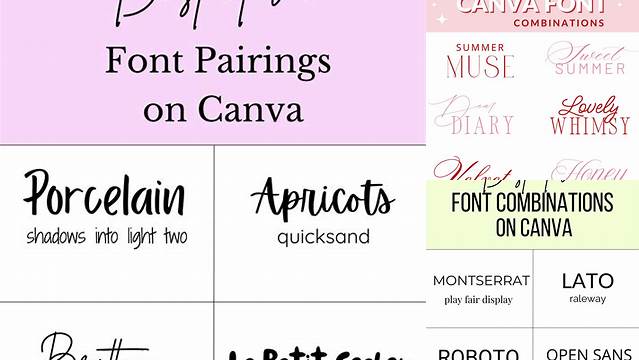
Free Canva Font Combinations: Generator & Guide
Hey guys! Ever struggled to find the perfect font pairings for your Canva designs? You're not alone! Choosing the right font combinations can be a real headache, but it's also crucial for creating visually appealing and effective designs. That's why we're diving deep into the world of Canva font combinations and how a free Canva font combinations generator can be your new best friend. In this guide, we'll explore everything from the basics of typography to advanced tips and tricks for creating stunning designs that grab attention. So, let's get started and unlock the power of perfect font pairings!
Understanding Font Pairing Principles
Before we jump into using a free Canva font combinations generator, let's cover the fundamental principles of font pairing. Think of it like this: fonts have personalities, and you want to create a harmonious relationship between them. Just like in real life, some personalities clash, while others complement each other beautifully. The key to successful font pairing is understanding these personalities and how they interact. You want your fonts to work together to convey your message effectively, creating a visually appealing hierarchy and readability. This involves considering contrast, readability, and the overall tone you want to set for your design.
The Importance of Contrast in Font Combinations
Contrast is king! When pairing fonts, you want to create a clear visual distinction between them. This helps to create a hierarchy in your design and makes it easier for your audience to read and understand your message. Imagine trying to read a document where all the text is the same size and font β it would be a total blur! Contrast can be achieved in several ways, such as pairing a bold font with a lighter one, a serif font with a sans-serif font, or a larger font size with a smaller one. This variation guides the viewer's eye and highlights important information. Using a free Canva font combinations generator can help you experiment with different contrast levels to see what works best for your project. Think about pairing a bold, attention-grabbing header font with a clean, legible body font. This ensures your headline stands out while your body text remains easy to read.
Readability: The Cornerstone of Effective Design
No matter how beautiful your design is, it's useless if no one can read it! Readability should always be a top priority when choosing font combinations. This means selecting fonts that are clear and easy to read, especially for body text. Avoid overly decorative or script fonts for large blocks of text, as they can strain the eyes. Generally, sans-serif fonts are considered more readable on screens, while serif fonts are often preferred for print. Consider the context of your design β where will it be viewed? On a website, in a brochure, or on a social media post? This will influence your choice of fonts. A free Canva font combinations generator can help you preview how your chosen fonts look together in different contexts, ensuring they maintain readability. Remember, a clear and readable design communicates your message effectively and keeps your audience engaged.
Setting the Tone with Typography
Fonts have personalities, and they can significantly impact the tone and mood of your design. A playful, handwritten font might be perfect for a children's book, but it would look out of place in a corporate report. Serif fonts often convey a sense of tradition, authority, and elegance, while sans-serif fonts tend to feel modern, clean, and approachable. Script fonts can add a touch of personality and flair, but they should be used sparingly and with caution. Think about the message you want to convey and choose fonts that align with that message. A free Canva font combinations generator can help you explore different font styles and see how they work together to create a specific tone. Are you aiming for professional and sophisticated? Fun and playful? Understanding the emotional impact of different fonts is crucial for creating designs that resonate with your audience.
Exploring Canva's Font Library
Canva boasts a massive font library, offering a diverse range of options to suit every design style. From classic serif fonts like Times New Roman and Garamond to modern sans-serif fonts like Helvetica and Open Sans, and even playful script and display fonts, there's something for everyone. Navigating this vast collection can feel overwhelming, but it's also an exciting opportunity to discover new favorites and create unique font combinations. Understanding the different font categories and their characteristics can make the process much easier. A free Canva font combinations generator often includes previews of various fonts, allowing you to quickly browse and compare styles. Canva also allows you to upload your own fonts, expanding your creative possibilities even further. The key is to explore, experiment, and find fonts that truly reflect your brand and message. Remember to consider factors like readability, contrast, and overall aesthetic when making your selections. Canva's font library is a treasure trove waiting to be explored β dive in and unleash your creativity!
Serif Fonts: Classic and Timeless
Serif fonts are characterized by the small strokes or "serifs" that extend from the main strokes of the letters. These fonts often convey a sense of tradition, authority, and elegance. Think of classic books, newspapers, and corporate documents β serif fonts are often the go-to choice for these types of designs. Popular serif fonts in Canva include Times New Roman, Garamond, Georgia, and Playfair Display. These fonts are excellent for body text in print materials, as the serifs help to guide the eye and improve readability. However, they can also be used for headings and titles, especially when paired with a contrasting sans-serif font. Using a free Canva font combinations generator, you might pair Playfair Display as a header with Montserrat as a body font for a sophisticated and readable design. Serif fonts bring a touch of sophistication and history to your designs, making them a versatile choice for a wide range of projects. If you're aiming for a classic and professional look, serif fonts are a fantastic option.
Sans-Serif Fonts: Modern and Clean
Sans-serif fonts, as the name suggests, lack the small strokes or serifs found in serif fonts. This gives them a cleaner, more modern appearance. Sans-serif fonts are often associated with minimalism, technology, and contemporary design. They are generally considered more readable on screens, making them a popular choice for websites, apps, and digital marketing materials. Canva offers a wide variety of sans-serif fonts, including Helvetica, Arial, Open Sans, Lato, and Montserrat. These fonts are incredibly versatile and can be used for both headings and body text. When pairing sans-serif fonts, it's important to consider contrast in weight and size to create visual interest. A free Canva font combinations generator can help you experiment with different sans-serif pairings. For example, you might pair the bold Montserrat with the lighter Open Sans for a clean and modern look. Sans-serif fonts are the workhorses of the digital world, providing a clean and readable aesthetic that works well in a variety of contexts.
Script Fonts: Elegant and Playful
Script fonts mimic the flowing strokes of handwriting, adding a touch of elegance, personality, and flair to your designs. These fonts can range from formal and calligraphic to playful and whimsical. Script fonts are best used sparingly, as they can be difficult to read in large blocks of text. They are ideal for headings, logos, invitations, and other design elements where you want to make a statement. Canva's script font library includes options like Pacifico, Lobster, Brush Script MT, and Great Vibes. When pairing script fonts, it's crucial to choose a contrasting font that is highly readable, such as a simple sans-serif or serif font. A free Canva font combinations generator can help you find the perfect balance between elegance and readability. For instance, you might pair the flowing Great Vibes script with the clean Open Sans for a wedding invitation design. Script fonts add a touch of personality and artistry to your designs, but remember to use them judiciously to maintain readability and visual harmony.
Display Fonts: Bold and Unique
Display fonts are designed to grab attention and make a statement. These fonts often feature unique shapes, weights, and styles, making them perfect for headlines, logos, and other design elements where you want to stand out. Display fonts are not typically suitable for body text, as their decorative nature can hinder readability. Canva offers a wide range of display fonts, from bold and geometric to whimsical and illustrative. When using display fonts, it's essential to pair them with a simple and readable font for the body text. This creates a visual hierarchy and ensures that your message is clear. A free Canva font combinations generator can help you explore different display font pairings. For example, you might pair the bold Bebas Neue with the clean Roboto for a striking headline and readable body text combination. Display fonts are the attention-getters of the font world, allowing you to express your creativity and make a lasting impression. Use them strategically to add personality and visual impact to your designs.
How a Free Canva Font Combinations Generator Works
Okay, so now you're armed with the basics of font pairing and the amazing variety in Canva's font library. But let's be real, sifting through all those fonts and trying to figure out what works can still feel like a Herculean task. That's where a free Canva font combinations generator comes to the rescue! These handy tools are designed to simplify the font pairing process, suggesting harmonious combinations based on various criteria. Most generators work by allowing you to input a base font or select a style you're aiming for (e.g., modern, classic, playful). The generator then uses algorithms and design principles to suggest complementary fonts that work well together. This can save you tons of time and effort, and even introduce you to fonts you might not have considered otherwise. These generators often provide previews of the font combinations, allowing you to see how they look together before implementing them in your design. Think of it as your personal font pairing assistant, guiding you towards typographic perfection.
Inputting a Base Font for Suggestions
One of the most common ways a free Canva font combinations generator works is by allowing you to input a base font. This is a font that you already like or have chosen for a specific purpose, such as your brand font or a font that perfectly captures the tone of your design. Once you enter the base font, the generator analyzes its characteristics β such as its style, weight, and serifs (or lack thereof) β and suggests fonts that complement it well. This is incredibly helpful because it takes the guesswork out of finding a secondary font that won't clash with your primary font. For example, if you input Montserrat (a popular sans-serif font), the generator might suggest pairing it with a serif font like Merriweather for contrast and readability. This feature is perfect for designers who have a starting point but need help finding the perfect font partner. It's like having a font sommelier recommending the perfect wine pairing for your design!
Selecting a Style for Inspiration
Sometimes, you might not have a specific font in mind, but you have a clear idea of the style you want to achieve β perhaps modern, classic, minimalist, or playful. Many free Canva font combinations generators allow you to select a style as a starting point for your font search. This is a fantastic way to get inspiration and explore different typographic directions. When you select a style, the generator will suggest font combinations that align with that aesthetic. For example, if you select "classic," the generator might recommend pairings of serif fonts like Garamond and Baskerville. If you choose "modern," you might see suggestions involving sans-serif fonts like Open Sans and Lato. This feature is invaluable for designers who are experimenting with different styles or need help translating their vision into typography. It's like having a mood board for fonts, guiding you towards the perfect aesthetic for your design.
Previewing Font Combinations in Real-Time
Seeing is believing, especially when it comes to font pairing! One of the most valuable features of a free Canva font combinations generator is the ability to preview font combinations in real-time. This allows you to see exactly how the fonts will look together in a design context before you commit to using them. Generators often provide a preview area where you can type in sample text and see it rendered in the suggested font pairings. This gives you a clear idea of the fonts' readability, contrast, and overall visual harmony. You can experiment with different sizes, weights, and styles to fine-tune the combination to your liking. This real-time preview functionality is crucial for making informed decisions and avoiding typographic mishaps. It's like trying on clothes before you buy them β you want to make sure they fit and look good!
Top Free Canva Font Combination Generators
Alright, so you're sold on the idea of using a free Canva font combinations generator β awesome! But with so many options out there, how do you choose the right one? Don't worry, we've got you covered. Here are some of the top free Canva font combination generators that you can start using today:
Canva's Built-In Font Pairing Tool
Did you know that Canva itself has a built-in font pairing tool? Yep! While it's not a standalone "generator" in the traditional sense, Canva's design interface offers helpful suggestions for font combinations as you're working on your projects. When you select a text element and choose a font, Canva will often suggest other fonts that pair well with your selection. This is a super convenient way to discover new combinations without leaving the Canva platform. Canva's suggestions are based on typographic principles and design best practices, so you can trust that they're generally solid choices. This built-in feature is perfect for designers who want a seamless font pairing experience within their Canva workflow. It's like having a font pairing guru whispering suggestions in your ear as you design!
FontPair: A Dedicated Font Pairing Website
FontPair is a fantastic website dedicated specifically to font pairing. It features a curated collection of font combinations, showcasing pairings from Google Fonts, which are readily available in Canva. FontPair's interface is clean and intuitive, making it easy to browse different combinations and see how they look in real-time. You can filter font pairings by style (e.g., modern, classic, serif, sans-serif) to find the perfect match for your project. Each combination is presented with a clear visual example, showing how the fonts work together for headings and body text. FontPair is a valuable resource for designers who want a focused and curated selection of font pairings. It's like a boutique font shop, offering carefully selected and stylish combinations for your consideration.
Coolors: A Versatile Design Tool with Font Pairing
Coolors is a popular online tool known for its color palette generator, but it also offers a handy font pairing feature. This makes it a one-stop shop for design inspiration, allowing you to explore both color and font combinations in one place. Coolors' font pairing tool allows you to input a base font and generates suggestions for complementary fonts. It also provides previews of the combinations, so you can see how they look together. The integration with the color palette generator is particularly useful, as it allows you to create a cohesive visual design that harmonizes both color and typography. Coolors is a versatile tool for designers who want to explore the interplay between color and font in their projects. It's like a design Swiss Army knife, offering a range of tools to help you create visually stunning designs.
FontJoy: An AI-Powered Font Combination Generator
FontJoy takes font pairing to the next level with its AI-powered generator. This tool uses machine learning algorithms to suggest font combinations based on your preferences. You can adjust the contrast and similarity levels to fine-tune the suggestions to your liking. FontJoy's interface is interactive and fun to use, allowing you to experiment with different combinations and see the results in real-time. The AI-powered nature of the tool means that it can generate a wide variety of unique and unexpected pairings that you might not have considered otherwise. FontJoy is a great option for designers who want to push the boundaries of typography and explore new possibilities. It's like having a font pairing robot assistant, generating innovative and surprising combinations for your design projects.
Tips for Using Font Combinations Effectively in Canva
Okay, you've got your free Canva font combinations generator, you've picked out some killer font pairings β now what? It's time to put those fonts to work! But just like any tool, a font combination generator is only as effective as the person using it. To really nail your typography game in Canva, here are some essential tips for using font combinations effectively:
Limiting the Number of Fonts in a Design
Less is often more, especially when it comes to fonts. A general rule of thumb is to limit yourself to two or three fonts in a single design. Using too many fonts can create a cluttered and confusing visual experience, diluting your message and making your design look amateurish. When you stick to a limited number of fonts, you create a sense of visual harmony and consistency. Choose one font for your headings and another for your body text, and perhaps a third for accents or captions. This creates a clear hierarchy and ensures that your design is easy to read and understand. A free Canva font combinations generator can help you narrow down your choices and find a small set of fonts that work beautifully together. Think of your fonts as members of a band β you want a cohesive group that plays well together, not a cacophony of competing instruments.
Establishing a Clear Visual Hierarchy
A strong visual hierarchy is crucial for guiding your audience through your design and highlighting important information. This is achieved by using different font sizes, weights, and styles to create a clear distinction between headings, subheadings, body text, and other elements. Your headings should be the largest and most prominent fonts, drawing the viewer's eye to the key messages. Subheadings should be smaller than headings but larger than body text, providing a secondary level of information. Body text should be legible and easy to read, typically using a simpler font style. Using a free Canva font combinations generator, you can experiment with different font pairings to create a visually appealing hierarchy. For example, you might use a bold display font for your main heading, a slightly smaller sans-serif font for subheadings, and a classic serif font for the body text. A well-defined visual hierarchy ensures that your message is clear, engaging, and easy for your audience to follow.
Maintaining Consistency Across Designs
Consistency is key for building a strong brand identity and creating a cohesive visual experience. This means using the same font combinations across all your designs, from your website and social media graphics to your marketing materials and presentations. When you consistently use the same fonts, your audience will begin to associate them with your brand, creating a sense of familiarity and trust. Choose a set of fonts that reflects your brand personality and stick with them. A free Canva font combinations generator can help you identify a core set of fonts that you can use consistently. Create a style guide that outlines your font choices and how they should be used in different contexts. This will ensure that your designs are always on-brand and visually consistent. Consistency in typography is a powerful tool for building brand recognition and reinforcing your message.
Considering the Mood and Tone of Your Design
As we discussed earlier, fonts have personalities, and they can significantly impact the mood and tone of your design. When choosing font combinations, it's crucial to consider the message you want to convey and the emotions you want to evoke. A playful, handwritten font might be perfect for a birthday invitation, but it would look out of place in a professional business report. Serif fonts often convey a sense of tradition and authority, while sans-serif fonts tend to feel modern and approachable. Script fonts can add a touch of elegance and personality, but they should be used sparingly. A free Canva font combinations generator can help you explore different font styles and see how they work together to create a specific mood. Think about the overall tone of your design and choose fonts that align with that tone. This will help you create a visually compelling and emotionally resonant message.
Common Font Pairing Mistakes to Avoid
Even with a free Canva font combinations generator at your disposal, it's still possible to make font pairing mistakes. Typography is a subtle art, and it takes practice and attention to detail to master. To help you avoid common pitfalls, here are some font pairing mistakes to watch out for:
Pairing Fonts That Are Too Similar
One of the most common font pairing mistakes is choosing fonts that are too similar. While you want your fonts to harmonize, you also need to create enough contrast to establish a visual hierarchy and make your design interesting. If your fonts are too alike, they can blend together and make your design look flat and uninspired. For example, pairing two sans-serif fonts with similar weights and styles can result in a monotonous look. The key is to find fonts that complement each other but also have distinct personalities. A free Canva font combinations generator can help you identify fonts that offer the right amount of contrast. Think about pairing a bold font with a lighter one, a serif font with a sans-serif font, or a larger font size with a smaller one. This will create visual interest and guide the viewer's eye through your design.
Overusing Script or Decorative Fonts
Script and decorative fonts can add a touch of personality and flair to your designs, but they should be used sparingly. These fonts are often difficult to read in large blocks of text, and overusing them can create a cluttered and overwhelming visual experience. Save script and decorative fonts for headings, logos, or other design elements where you want to make a statement. For body text, stick to simpler and more readable fonts, such as sans-serif or serif fonts. A free Canva font combinations generator can help you find the perfect balance between elegance and readability when using script fonts. Think of script and decorative fonts as accent pieces β they can enhance your design, but they shouldn't be the main focus. Use them judiciously to add visual interest without sacrificing readability.
Ignoring Readability in Your Font Choices
No matter how beautiful your font combinations are, they're useless if no one can read them! Readability should always be a top priority when choosing fonts, especially for body text. Avoid overly decorative or stylized fonts for large blocks of text, as they can strain the eyes and make your message difficult to understand. Choose fonts that are clear, legible, and easy to read in the context of your design. Consider the size of the text, the spacing between letters and lines, and the color contrast between the text and the background. A free Canva font combinations generator can help you preview how your chosen fonts look together in different contexts, ensuring they maintain readability. Remember, clear communication is the foundation of effective design. Prioritize readability to ensure that your message is easily understood by your audience.
Forgetting About Font Licensing
This is a crucial point that often gets overlooked: font licensing! Before using any font in your designs, it's essential to understand its licensing terms. Many fonts are free for personal use but require a commercial license for use in business or professional projects. Using a font without the proper license can lead to legal issues and financial penalties. Canva includes a variety of free fonts that are safe to use in commercial projects. However, if you upload your own fonts to Canva, it's your responsibility to ensure that you have the appropriate licenses. A free Canva font combinations generator may suggest fonts that have different licensing terms, so it's important to double-check before using them. Pay attention to font licenses to protect yourself and your business from legal problems. When in doubt, opt for fonts with clear and permissive licenses, or purchase commercial licenses for the fonts you need.
Real-World Examples of Great Canva Font Combinations
Okay, let's get practical! We've covered the theory and the tools, but now let's look at some real-world examples of fantastic font combinations that you can use in Canva. These examples will give you a concrete sense of how different fonts work together and inspire you to create your own stunning pairings. Remember, a free Canva font combinations generator can help you experiment with these suggestions and adapt them to your specific needs.
Playfair Display and Montserrat: Elegant and Modern
This is a classic pairing that combines elegance and modernity. Playfair Display, a serif font with a sophisticated flair, is perfect for headings and titles. Montserrat, a clean and versatile sans-serif font, works beautifully for body text. This combination is ideal for websites, brochures, and other designs where you want to convey a sense of professionalism and style. Playfair Display adds a touch of refinement, while Montserrat ensures readability and a contemporary feel. Think of this pairing as the little black dress of font combinations β timeless, versatile, and always in style. A free Canva font combinations generator would likely suggest this pairing as a great option for a sophisticated design.
Oswald and Lato: Bold and Approachable
Oswald is a bold and condensed sans-serif font that's perfect for headlines and calls to action. Lato, a clean and friendly sans-serif font, works well for body text and other supporting elements. This combination is ideal for marketing materials, social media graphics, and websites where you want to grab attention and convey a sense of approachability. Oswald's strong presence makes a statement, while Lato's readability ensures that your message is clear. This pairing is like a friendly handshake β confident and welcoming. A free Canva font combinations generator might recommend this pairing for designs that need a strong but approachable feel.
Raleway and Open Sans: Clean and Minimalist
Raleway is a sleek and elegant sans-serif font that works well for headings and subheadings. Open Sans, a highly readable sans-serif font, is a great choice for body text. This combination is perfect for minimalist designs, websites, and apps where you want a clean and uncluttered look. Raleway's subtle sophistication adds a touch of style, while Open Sans ensures readability and clarity. This pairing is like a well-organized workspace β clean, efficient, and easy to navigate. A free Canva font combinations generator might suggest this pairing for projects that prioritize simplicity and clarity.
Merriweather and Roboto: Readable and Professional
Merriweather is a classic serif font designed specifically for on-screen readability, making it an excellent choice for body text. Roboto, a clean and modern sans-serif font, works well for headings and subheadings. This combination is ideal for blog posts, articles, and other text-heavy designs where readability is paramount. Merriweather's serif details enhance readability, while Roboto's clean lines provide a contemporary touch. This pairing is like a trusted advisor β reliable, professional, and easy to understand. A free Canva font combinations generator would likely recommend this pairing for content-heavy designs that prioritize readability and professionalism.
Level Up Your Design with a Free Canva Font Combinations Generator
So there you have it, guys! Everything you need to know about using a free Canva font combinations generator to create stunning typography in your designs. From understanding the principles of font pairing to exploring Canva's vast font library and avoiding common mistakes, you're now well-equipped to master the art of font combinations. Remember, the right font pairings can elevate your designs, communicate your message effectively, and create a lasting impression on your audience. Don't be afraid to experiment, explore, and have fun with typography! With the help of a free Canva font combinations generator, you can unlock the power of perfect font pairings and create designs that truly shine. Now go forth and create some typographic magic!
Understanding the Psychology of Fonts
Delving deeper into the world of typography, itβs fascinating to consider the psychology of fonts. Different fonts evoke different emotions and associations. For instance, a bold, blocky font might convey strength and stability, making it suitable for a construction company's logo. Conversely, a flowing script font could evoke feelings of elegance and romance, making it a great choice for a wedding invitation. Understanding these psychological associations can significantly enhance your design choices. When you use a free Canva font combinations generator, think about the underlying message you want to send and how your font choices can reinforce that message. For example, pairing a serif font (tradition, trust) with a clean sans-serif (modernity, clarity) could be perfect for a financial institution wanting to project both stability and innovation. The psychology of fonts is a powerful tool for influencing perception and creating a design that resonates with your target audience.
How Font Choice Impacts Brand Perception
Your font choice is a crucial element of your brand identity, directly impacting how your brand is perceived. Think about some iconic brands β Coca-Cola's flowing script instantly conveys a sense of nostalgia and classic appeal, while Google's clean, sans-serif font projects a modern, tech-savvy image. The fonts you use in your logo, website, and marketing materials communicate your brand's personality and values. Are you aiming for a professional, trustworthy image? A fun, playful vibe? Or a sophisticated, luxurious feel? A free Canva font combinations generator can help you explore different typographic styles and see how they align with your brand's identity. It's essential to choose fonts that not only look good together but also accurately represent your brand's message and values. Your font choices are a silent ambassador for your brand, so make sure they're sending the right message.
Fonts for Different Industries: Best Practices
Specific industries often have typographic conventions that help establish credibility and resonate with their target audiences. For instance, law firms and financial institutions often favor serif fonts like Times New Roman or Garamond, conveying a sense of tradition, authority, and trustworthiness. Tech companies, on the other hand, typically opt for sans-serif fonts like Helvetica or Open Sans, projecting a modern, innovative image. The hospitality industry might use a mix of elegant serifs and script fonts to evoke luxury and sophistication. When selecting fonts, consider the industry you're in and the expectations of your target audience. A free Canva font combinations generator can be a valuable tool for exploring industry-specific font pairings. Researching best practices and understanding typographic conventions can help you make informed choices that enhance your brand's credibility and appeal.
Advanced Typography Tips for Canva Users
Ready to take your Canva typography skills to the next level? Once you've mastered the basics of font pairing and using a free Canva font combinations generator, it's time to explore some advanced techniques. These tips will help you fine-tune your designs and create truly professional-looking typography.
Kerning and Tracking: Fine-Tuning Spacing
Kerning and tracking are essential typographic adjustments that control the spacing between letters. Kerning refers to the space between individual letter pairs, while tracking adjusts the overall spacing between all letters in a word or phrase. Fine-tuning kerning and tracking can significantly improve the readability and visual appeal of your text. In Canva, you can adjust these settings in the text formatting panel. If you notice that certain letter pairs look too close or too far apart, kerning can help balance the visual spacing. Tracking is useful for adjusting the overall density of text, making it more or less compact. A free Canva font combinations generator might suggest fonts that have inherent kerning issues, so it's essential to be aware of these adjustments. Mastering kerning and tracking is a crucial step towards achieving professional-level typography.
Line Height and Letter Spacing for Readability
Line height (also known as leading) and letter spacing (tracking) play a crucial role in the readability of your text. Line height refers to the vertical space between lines of text, while letter spacing (as mentioned earlier) adjusts the horizontal space between letters. Proper line height allows the reader's eye to easily move from one line to the next, preventing the text from feeling cramped or overwhelming. Generally, a line height of 1.4 to 1.7 times the font size is recommended for body text. Letter spacing can be adjusted to improve the visual balance of your text. Tight letter spacing can make text feel dense and difficult to read, while excessive letter spacing can make it feel disconnected. A free Canva font combinations generator might suggest fonts that require specific line height or letter spacing adjustments to optimize readability. Experimenting with these settings will help you create text that is both visually appealing and easy to read.
Using Font Weights and Styles Effectively
Most fonts come in a variety of weights and styles, such as bold, italic, and light. Using these variations effectively can enhance the visual hierarchy and create emphasis in your designs. Bold fonts are ideal for headings and subheadings, drawing the viewer's eye to important information. Italic fonts can be used for emphasis or to differentiate certain words or phrases. Light fonts can be used for body text or captions, providing a subtle contrast to bolder elements. When using font weights and styles, it's important to maintain consistency and avoid overusing them. A free Canva font combinations generator can help you explore different font weights and styles within a specific font family. Experimenting with these variations can add depth and visual interest to your typography.
Creating Visual Hierarchy with Type Size and Color
Font size and color are powerful tools for creating visual hierarchy and guiding the viewer's eye through your design. Larger font sizes naturally draw more attention, making them ideal for headings and key messages. Smaller font sizes are suitable for body text and supporting information. Color can also be used to emphasize certain elements or create contrast. Using a bold color for headings or calls to action can make them stand out from the rest of the text. When using color for typography, it's important to consider contrast and readability. Ensure that your text has sufficient contrast against the background color to be easily readable. A free Canva font combinations generator can suggest font pairings that work well with different color schemes. Experimenting with font size and color will help you create a visually engaging and easy-to-navigate design.
The Future of Font Pairing and Design Tools
The world of font pairing and design tools is constantly evolving, driven by advancements in technology and the changing needs of designers. From AI-powered generators to collaborative design platforms, the future of typography is exciting. A free Canva font combinations generator is just the beginning β we can expect to see even more sophisticated tools emerge, making font pairing and design more accessible and efficient. Let's explore some of the trends shaping the future of font pairing and design.
AI-Powered Font Pairing and Design Assistance
Artificial intelligence (AI) is revolutionizing many industries, and design is no exception. AI-powered font pairing tools are becoming increasingly sophisticated, using machine learning algorithms to analyze font characteristics and suggest harmonious combinations. These tools can consider factors such as font style, weight, and x-height to generate unique and effective pairings. In the future, we can expect to see AI play an even larger role in design assistance, providing real-time feedback and suggestions as you work on your projects. A free Canva font combinations generator might incorporate AI to offer personalized recommendations based on your design style and preferences. AI-powered design assistance has the potential to streamline the design process and empower designers to create more compelling and innovative typography.
Collaborative Design Platforms and Typography
Collaboration is essential in many design projects, and collaborative design platforms are making it easier for teams to work together on typography and other design elements. These platforms allow multiple designers to access and edit the same project in real-time, facilitating seamless collaboration and feedback. Collaborative design platforms often include features for managing fonts, ensuring consistency across projects, and sharing font combinations. A free Canva font combinations generator might be integrated into a collaborative design platform, making it easy for teams to explore and implement font pairings. Collaborative design platforms are transforming the way designers work, fostering creativity and efficiency.
The Rise of Variable Fonts and Responsive Typography
Variable fonts are a relatively new font technology that allows for greater flexibility and control over typography. Unlike traditional fonts, which have a fixed set of styles, variable fonts can be customized along various axes, such as weight, width, and slant. This allows designers to create a wide range of typographic variations from a single font file, reducing file sizes and improving performance. Responsive typography is the practice of adapting typography to different screen sizes and devices. Variable fonts are well-suited for responsive typography, as they can be easily adjusted to maintain readability and visual appeal across different contexts. A free Canva font combinations generator might suggest variable fonts, allowing designers to explore their flexibility and create dynamic typography. Variable fonts and responsive typography are shaping the future of web design, enabling more engaging and user-friendly experiences.
Accessibility and Inclusivity in Typography Design
Accessibility and inclusivity are increasingly important considerations in design, and typography is no exception. Accessible typography ensures that your designs are readable and usable by people with disabilities, such as visual impairments or dyslexia. This includes choosing fonts with clear and distinct letterforms, using sufficient color contrast, and avoiding overly stylized or decorative fonts. Inclusive typography goes beyond accessibility, aiming to create designs that are welcoming and representative of diverse audiences. This might involve using fonts that support multiple languages and scripts, or choosing fonts that reflect the cultural context of your message. A free Canva font combinations generator might incorporate accessibility guidelines, suggesting font pairings that are optimized for readability and inclusivity. Designing with accessibility and inclusivity in mind is not only ethical but also enhances the overall user experience.
Final Thoughts: Embrace the Power of Fonts!
We've journeyed through the exciting world of font combinations, explored free Canva font combinations generators, and uncovered tips, tricks, and advanced techniques to elevate your designs. From understanding the psychology of fonts to mastering kerning and tracking, you now have a comprehensive toolkit to create stunning typography. Remember, the power of fonts lies not just in their aesthetic appeal, but also in their ability to communicate, evoke emotions, and build brand identity. Embrace the art of font pairing, experiment with different styles, and let your creativity flow. So, go ahead, unleash your inner typographer and design with confidence! Your perfect font combinations are waiting to be discovered.